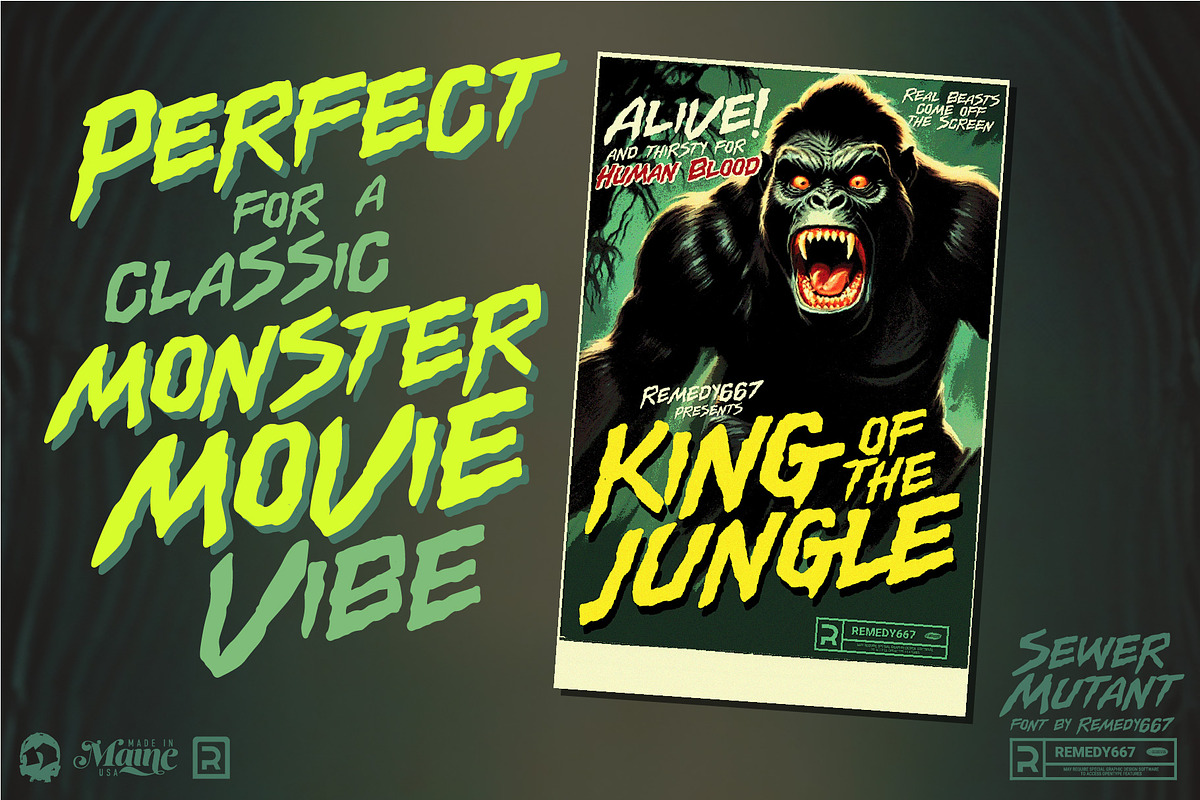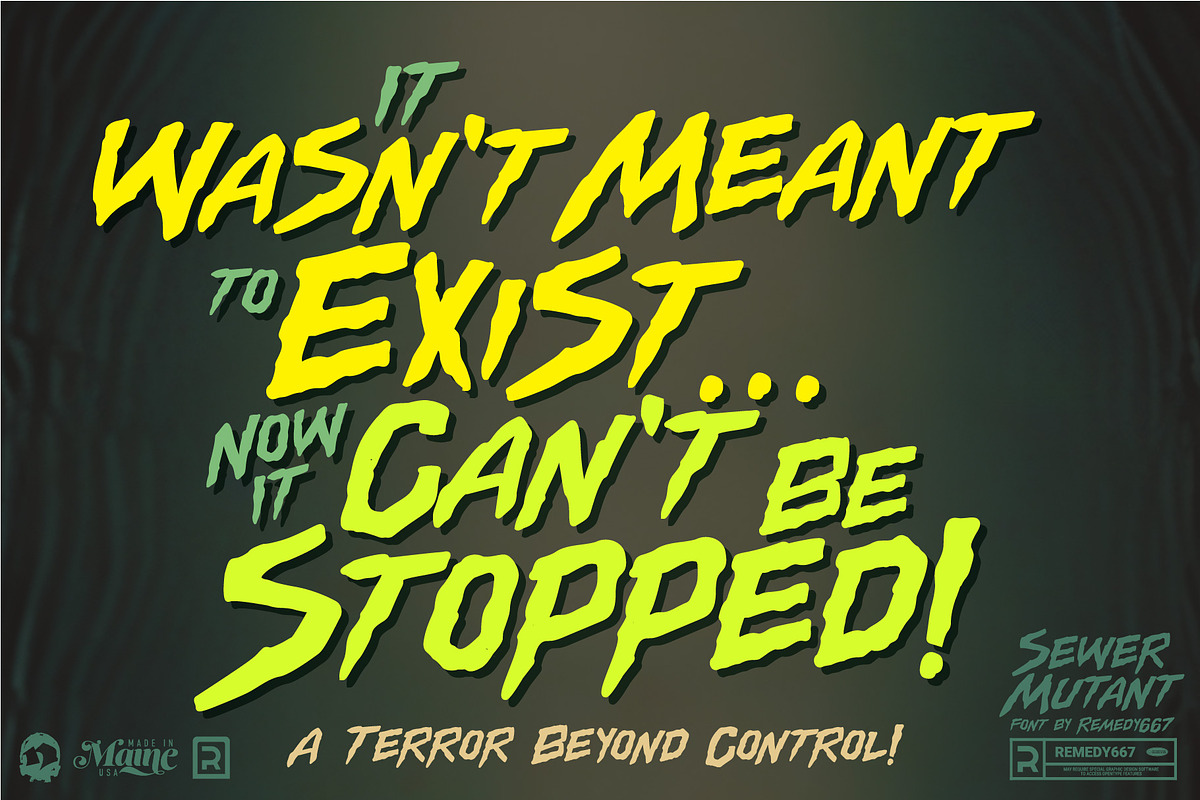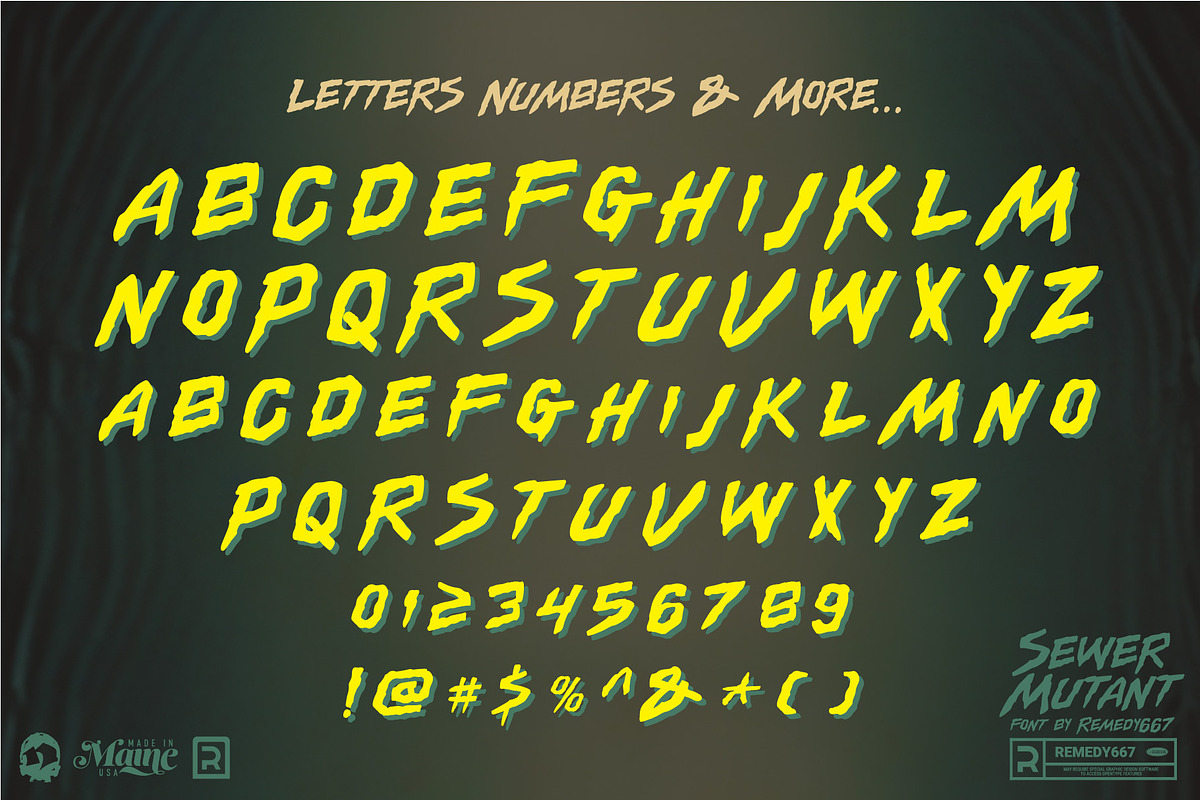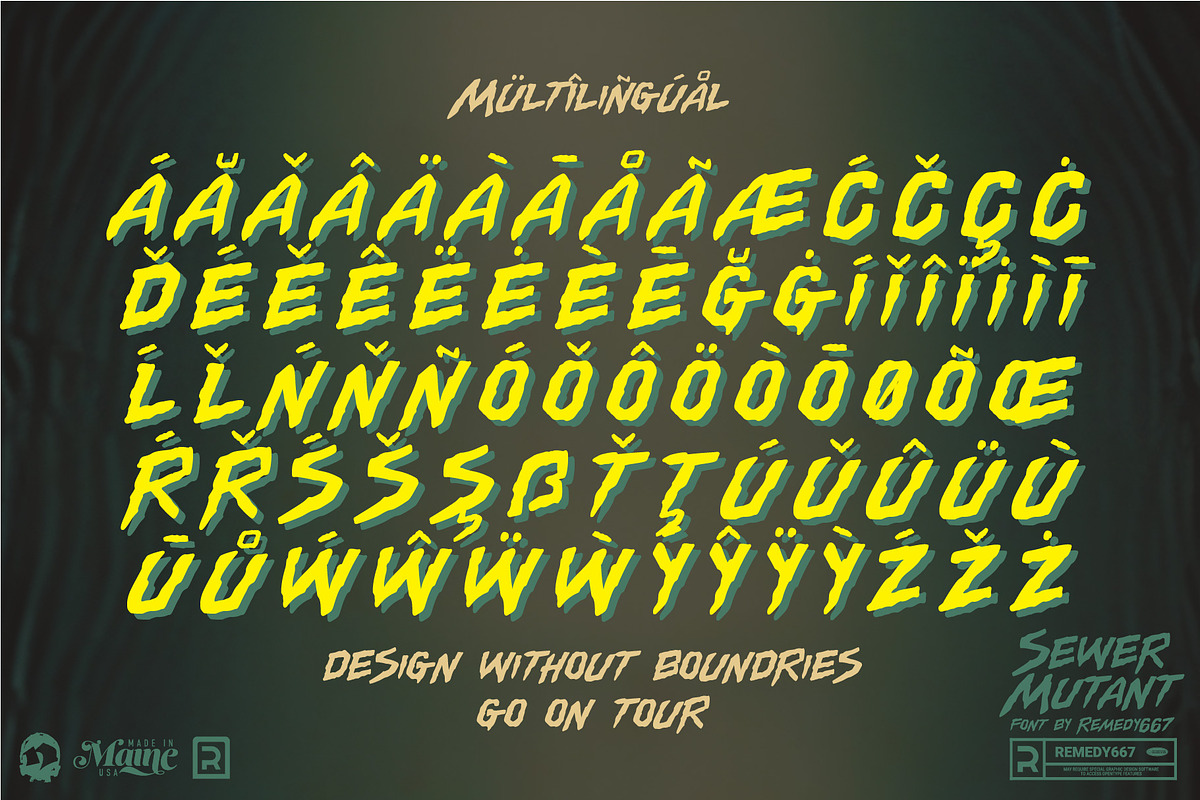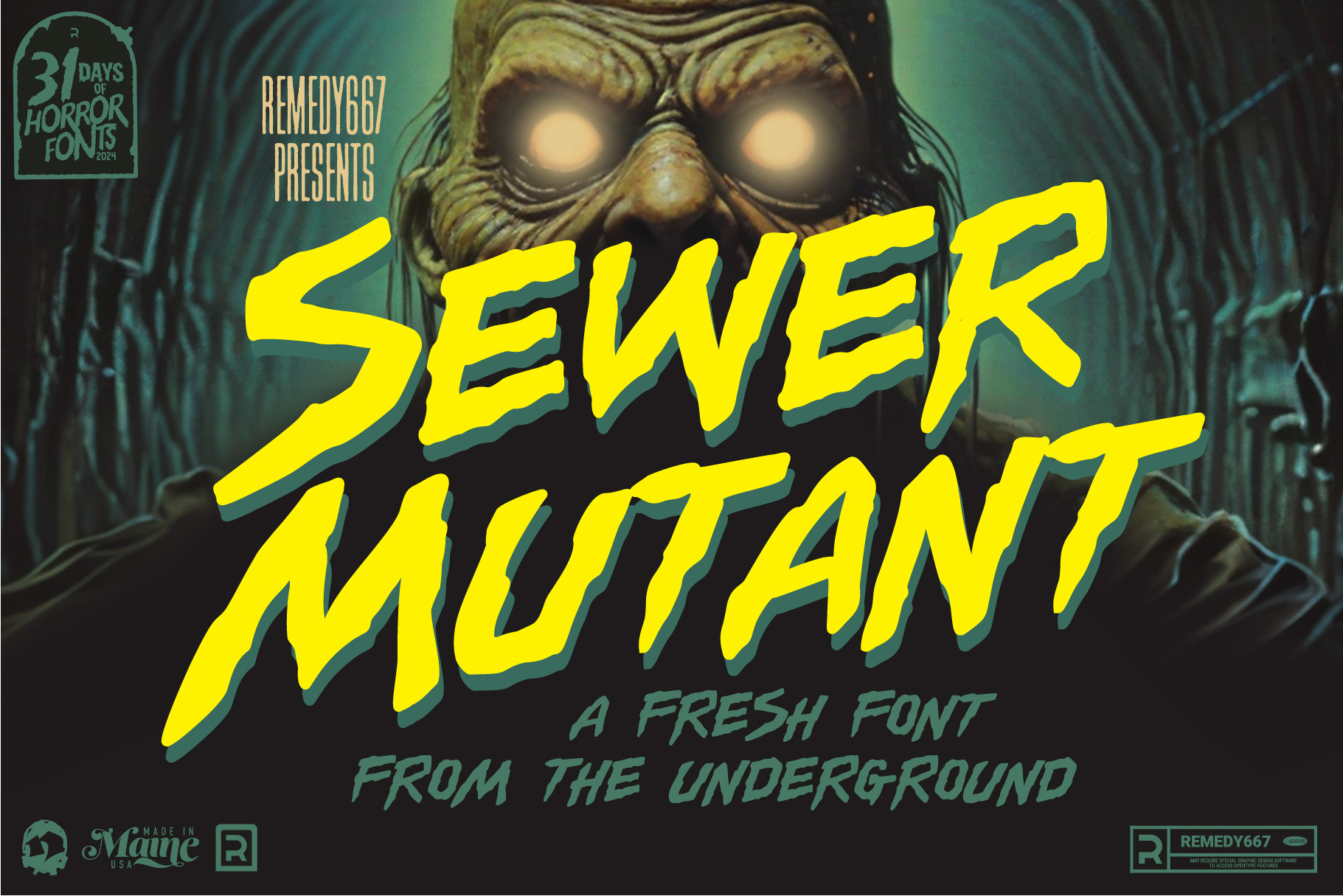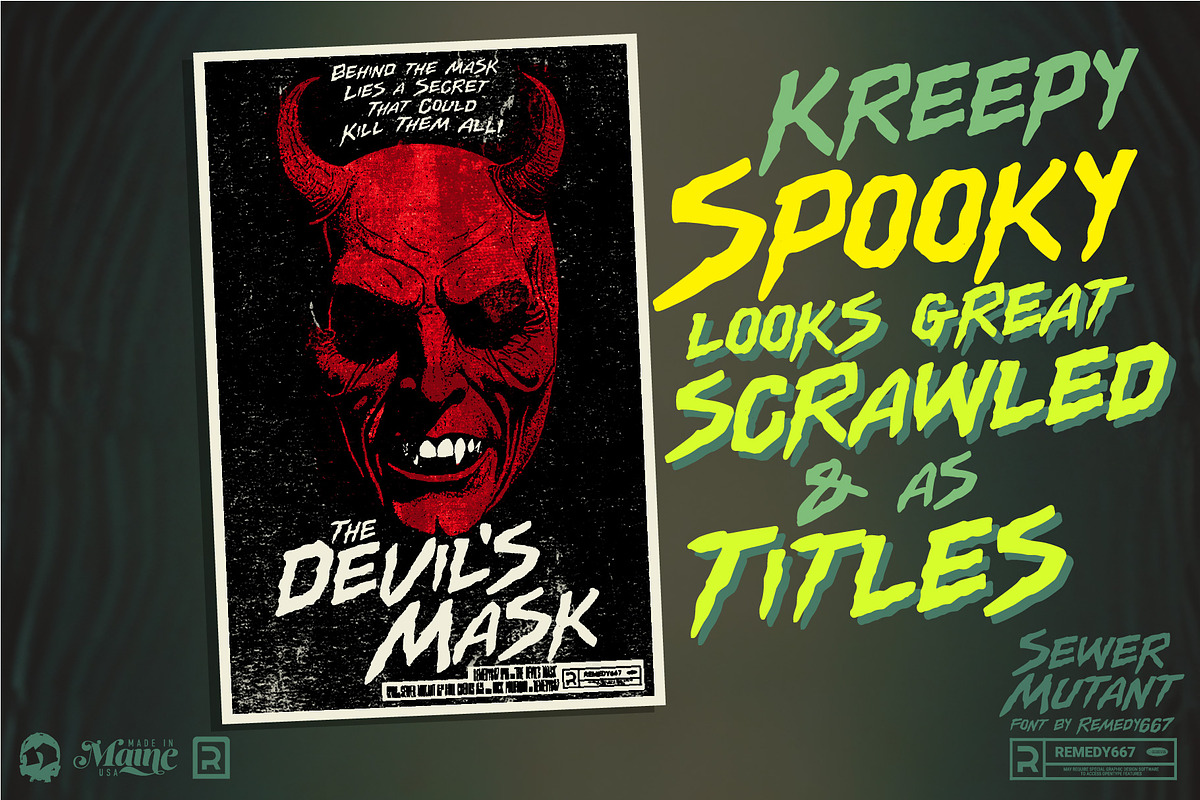
Sewer Mutant - Spooky Comic Font
Greetings, boils and ghouls! Feast your eyes on Sewer Mutant, a font that crawled its way out of the ooze and into your nightmares! Inspired by early 1990s comic book titling, this typeface oozes with playful, shaky lettering that feels right at home on a toxic waste barrel or in the mutant lair of your gory imagination. Created during the infamous 31 Days of Horror Fonts 2024, Sewer Mutant will give your designs that radioactive, larger-than-life comic vibe.
Whether you’re crafting monstrous movie posters, eerie apparel, or ghoulish graphic novels, Sewer Mutant is here to mutate your work into something horrifyingly memorable!
Unleash the radioactive terror of Sewer Mutant! Inspired by 1990s comic book titling, this playful horror font adds a toxic, shaky charm to posters, apparel, and more. Available now from Remedy667!
- Complete set of A-Z letters, numbers, and punctuation.
- Shaky, mutant-inspired lettering perfect for horror comics.
- Multilingual support to spread the horror worldwide.
- Ideal for posters, apparel, logos, and Halloween designs.